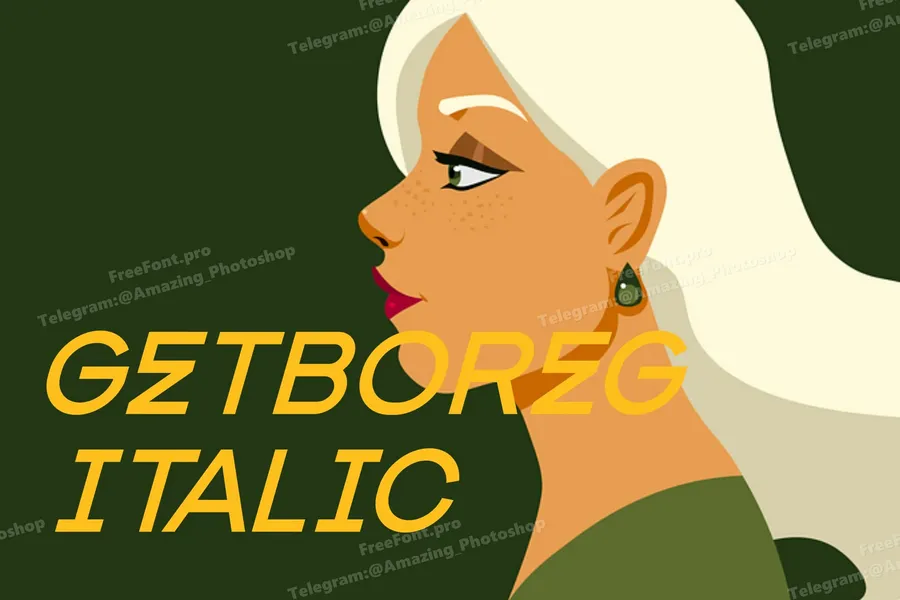
Getboreg Italic
This striking typeface commands attention with its bold, contemporary lines and clean, geometric forms. Its modern aesthetic is perfect for conveying a sense of innovation and forward-thinking, making your message resonate with clarity and impact.